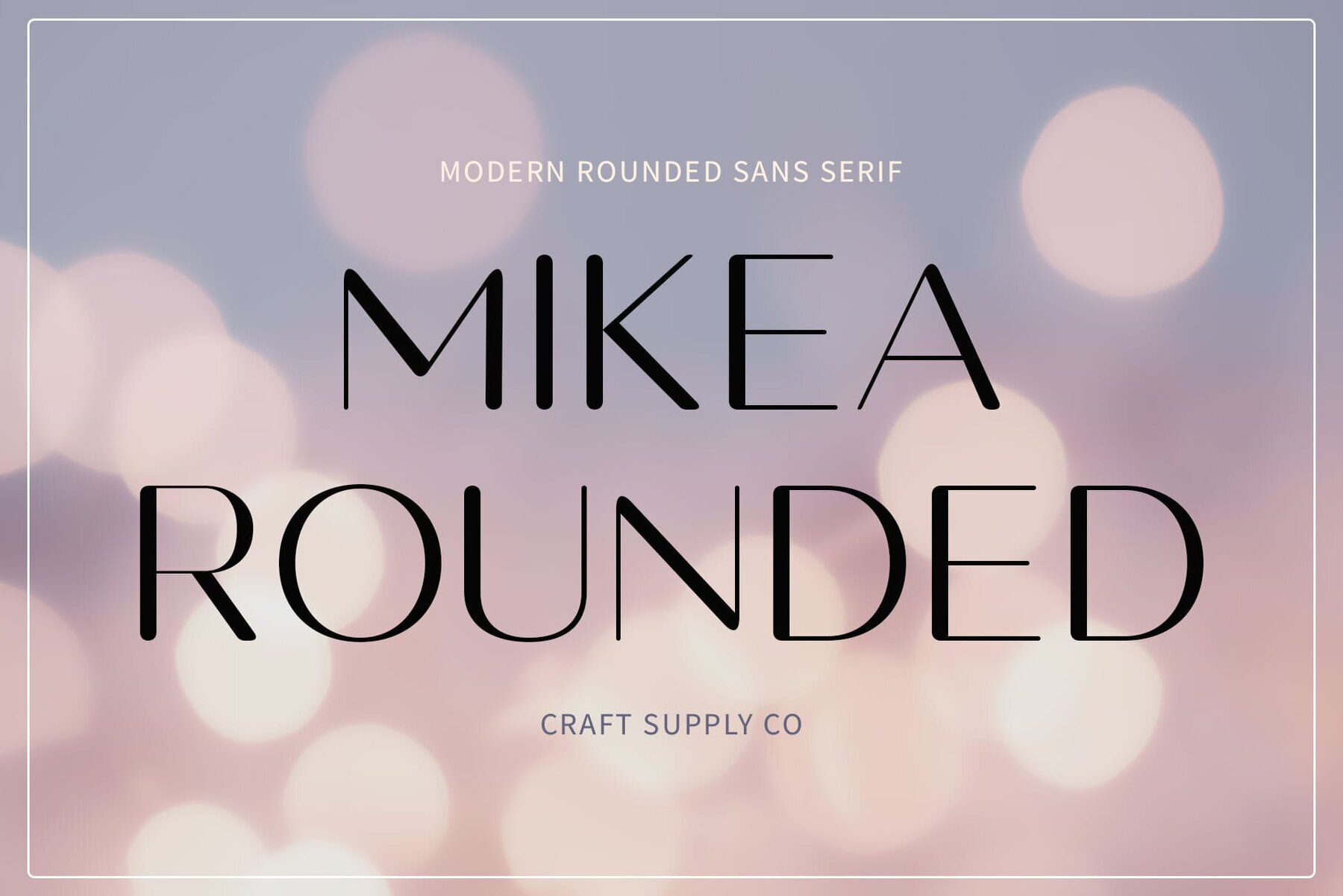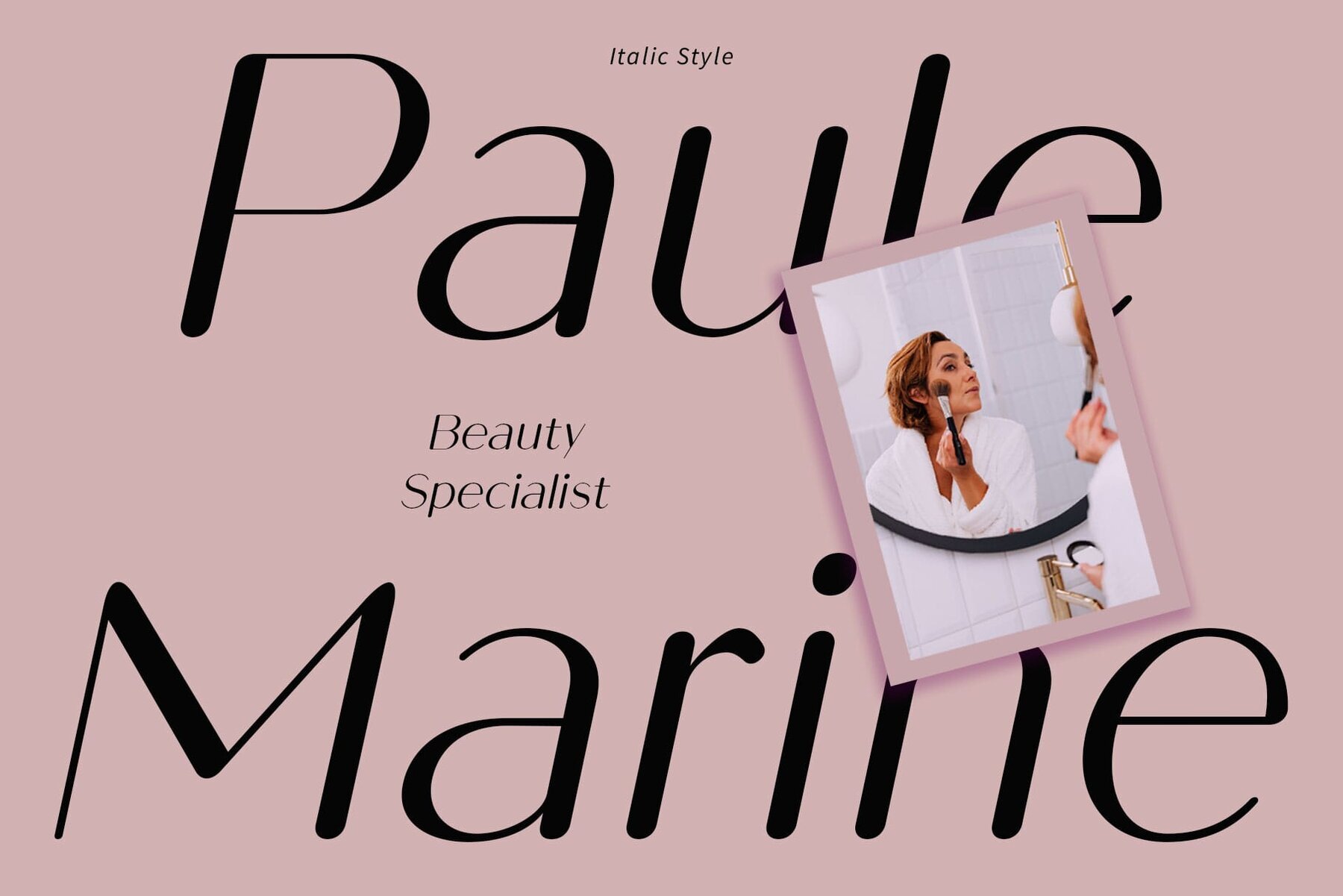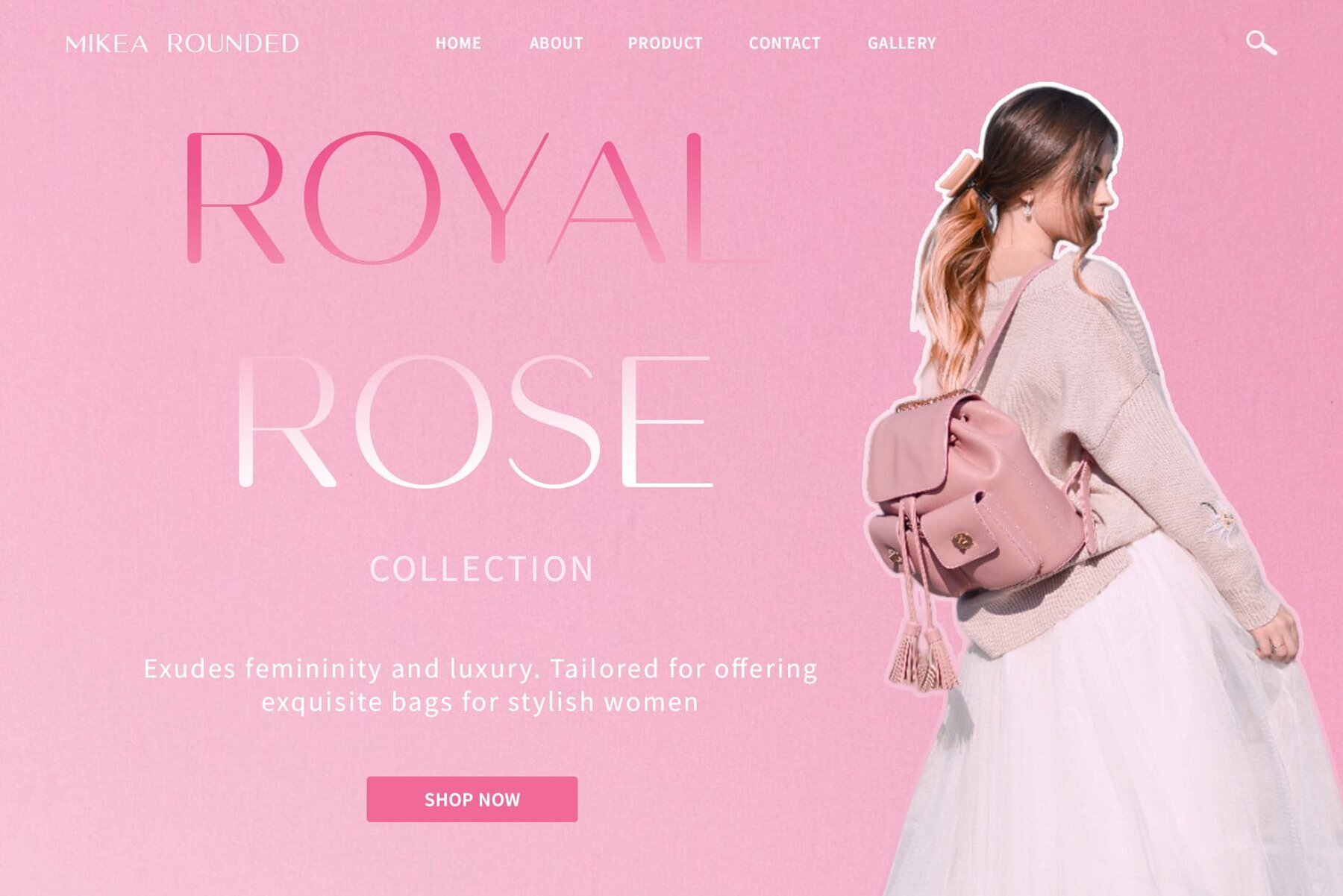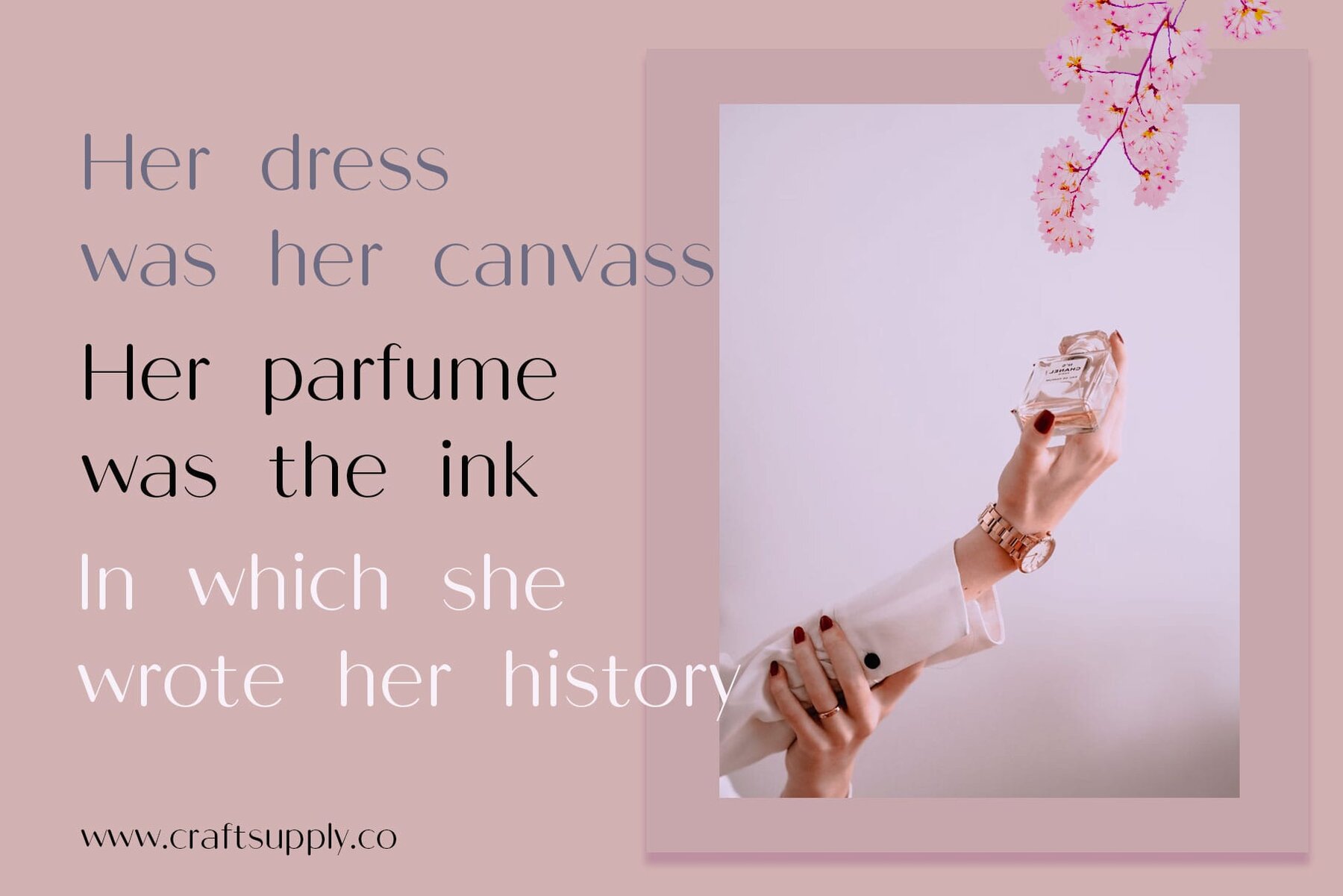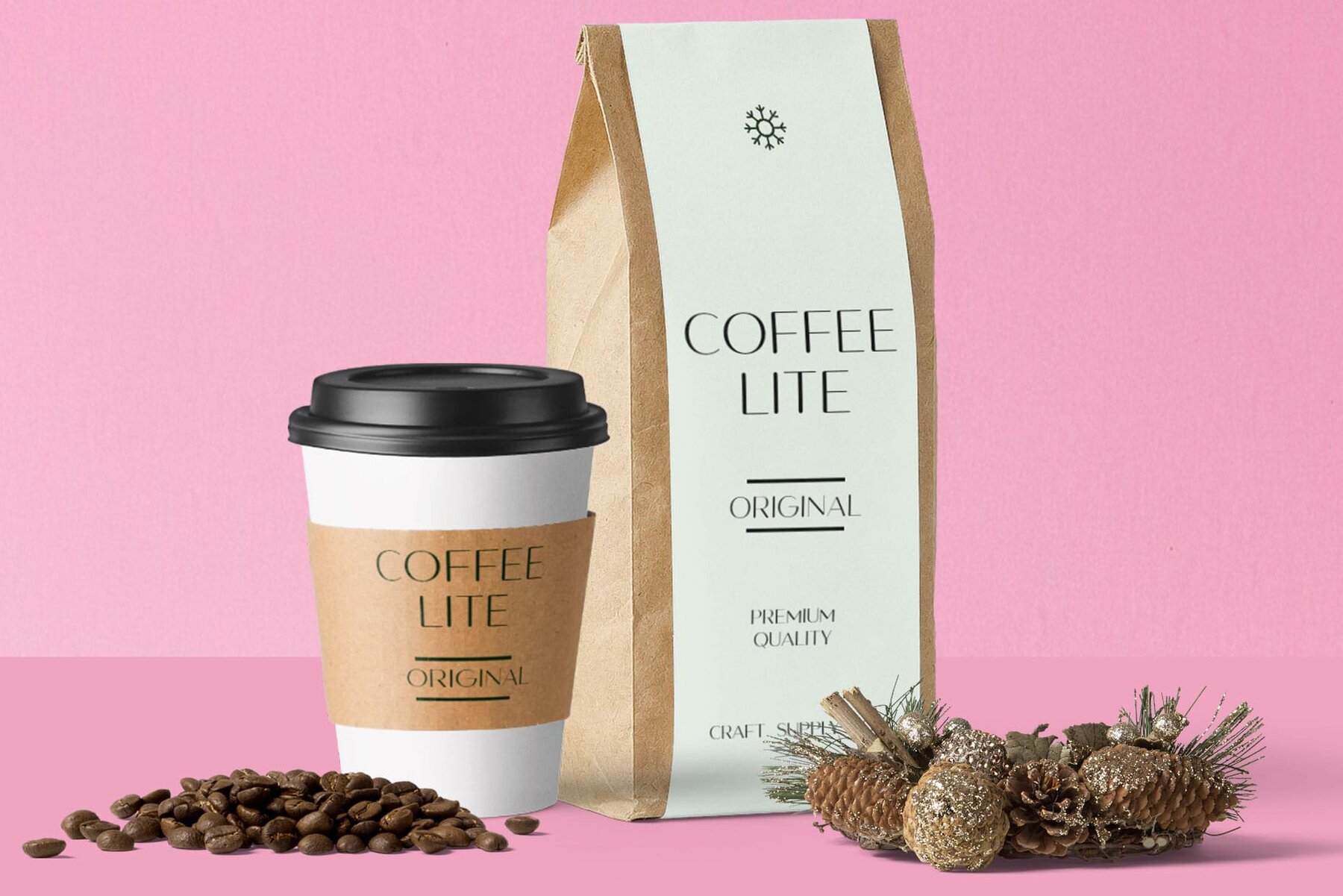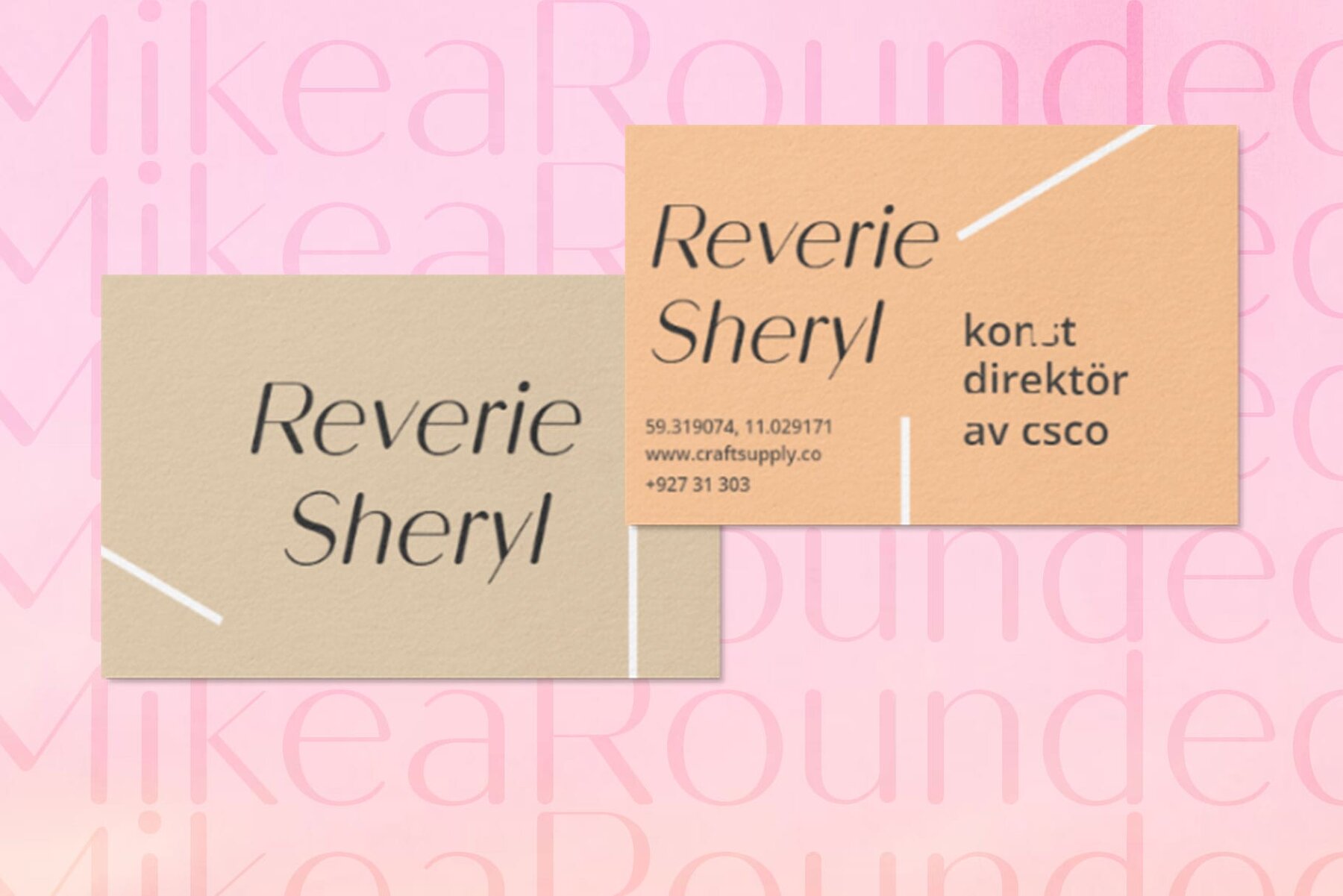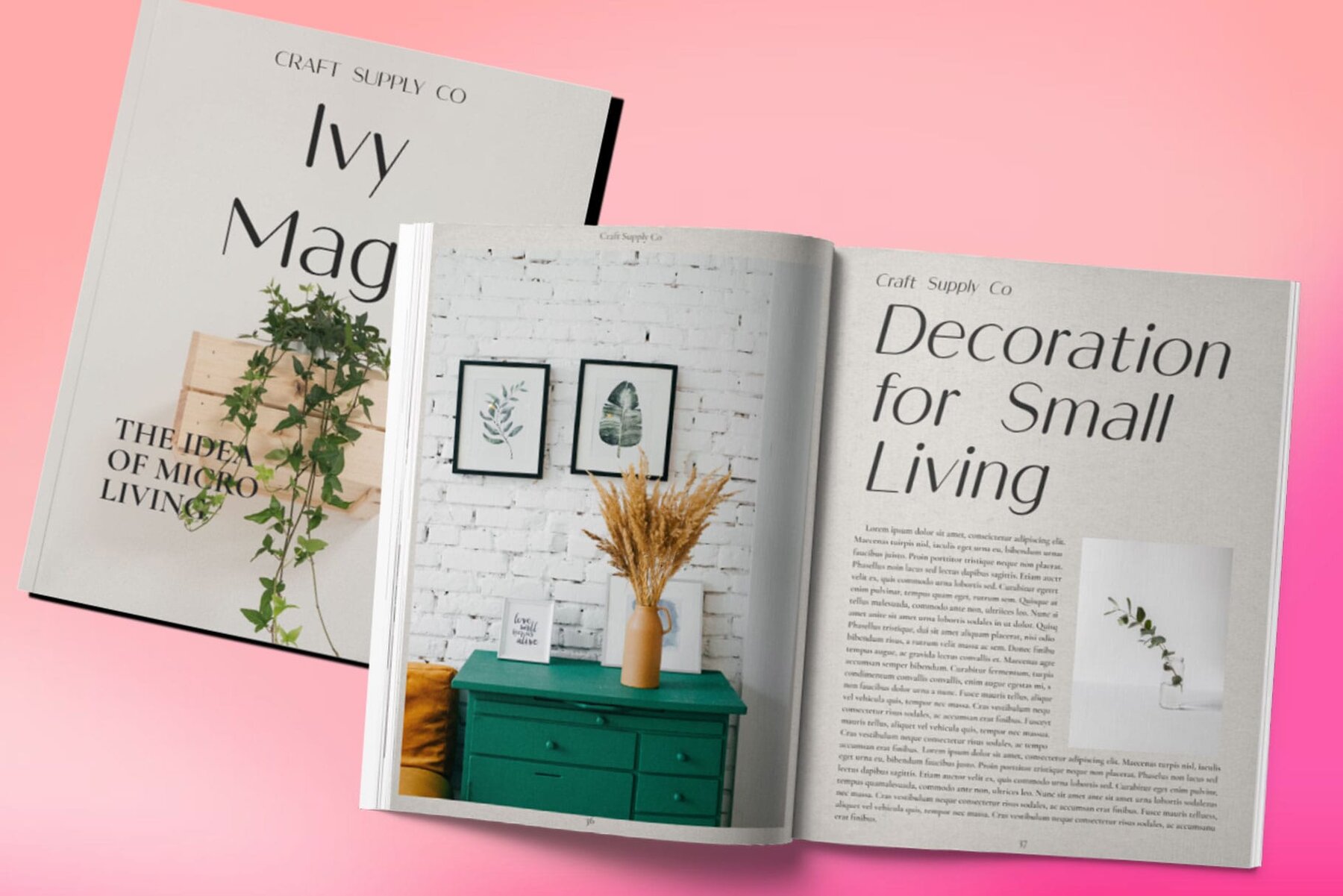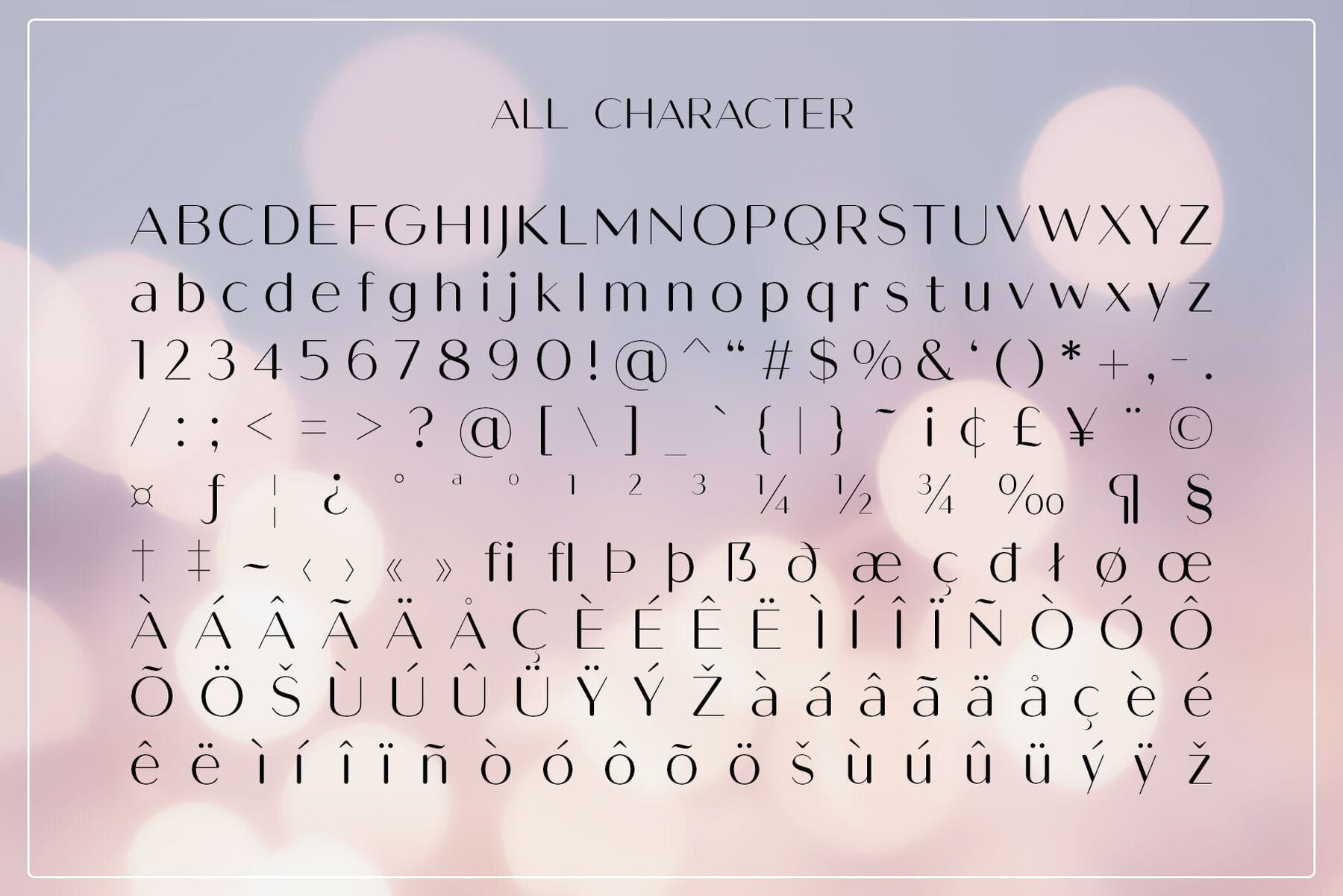
Mikea Rounded Font
This sleek and modern sans-serif font is perfect for a variety of design projects that require a clean and elegant look. Its thin strokes and minimalistic design make it ideal for professional applications such as branding, corporate identity, and editorial design. This font also works well in web design and UI/UX projects, providing clarity and legibility in both headlines and body text.